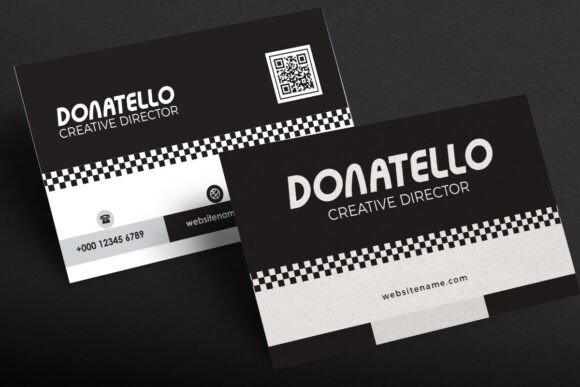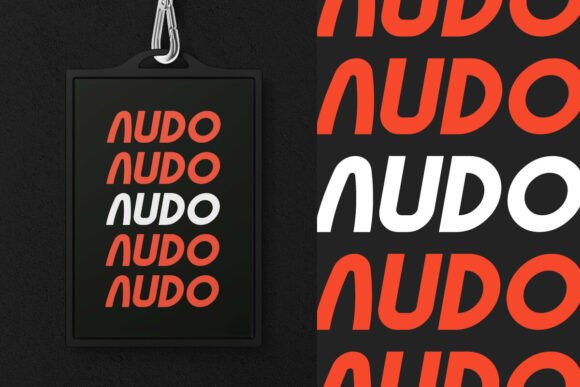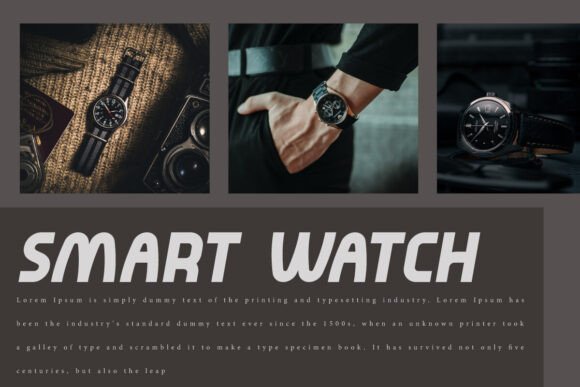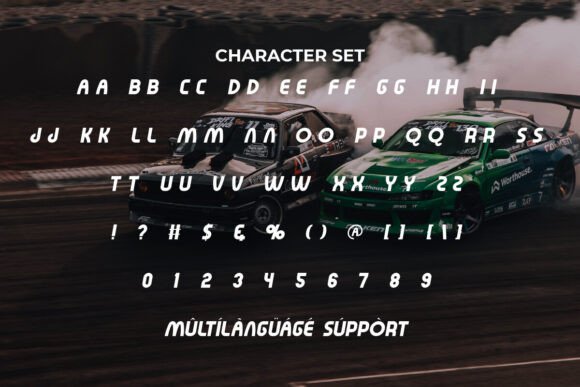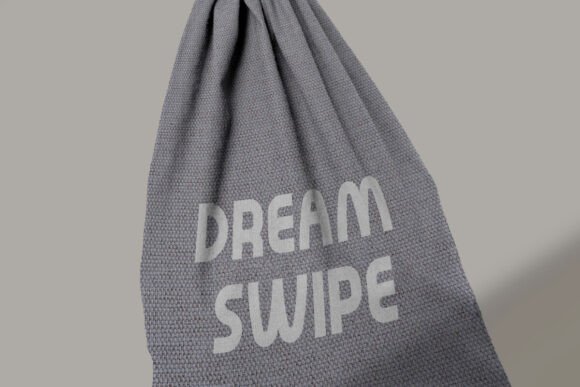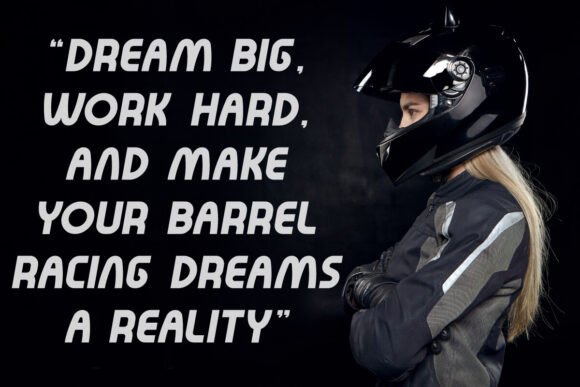
Getting Ready to Make a Statement with Dream Swipe Font
Have you ever stared at a blank canvas, waiting for inspiration to strike? It’s that moment when creativity flows, and your imagination runs wild. You see it – a vibrant, dynamic design that captures the essence of your project. For designers, this moment is pure magic. And now, we’re about to unlock the secret to elevating your designs to the next level with the Dream Swipe Font.
This high-quality font is more than just a design resource; it’s a game-changer. Its transparent background and sleek, modern style make it perfect for a wide range of creative projects. From eye-catching billboards to sleek business cards, Dream Swipe Font is sure to make a lasting impression. And the best part? It’s available for free download, giving you the freedom to experiment and push the boundaries of your design.
Key Features of Dream Swipe Font
- High-quality design with a transparent background, making it perfect for creative projects and designs.
- Designed as a design resource, this font is ideal for use in digital art, graphic design, and other creative endeavors.
- Unique swiping animation effect, adding a dynamic touch to any design or project.
Honest Review: Dream Swipe Font
I recently had the chance to work with the Dream Swipe Font, and I must say, it’s a great addition to any design resource. This font is perfect for those looking for a high quality, modern design element for their creative project.
- ✨ High quality, crisp design that’s perfect for digital applications
- ✨ Transparent background, making it easy to use with any background image or color
- ⚠️ Limited character set, making it difficult to use for longer text blocks
- ⚠️ Not suitable for print applications due to the digital design
Overall, I’m impressed with the Dream Swipe Font. It’s a great resource for designers looking to add a modern touch to their work. While it may have some limitations, it’s a valuable addition to any design toolbox.
Dream Swipe Font
To get the most out of Dream Swipe Font, use it with a transparent background to create a clean and minimalist design. Experiment with different font styles and combinations to find the perfect look for your project.
Dream Swipe Font is ideal for various design projects such as brochures, flyers, business cards, and social media graphics. Its high-quality design and transparent background make it a versatile design resource for any creative project.
Does the Dream Swipe Font have a transparent background?
Yes, the Dream Swipe Font has a transparent background, making it ideal for use on images or videos with a background. This feature allows for seamless integration and a clean design.